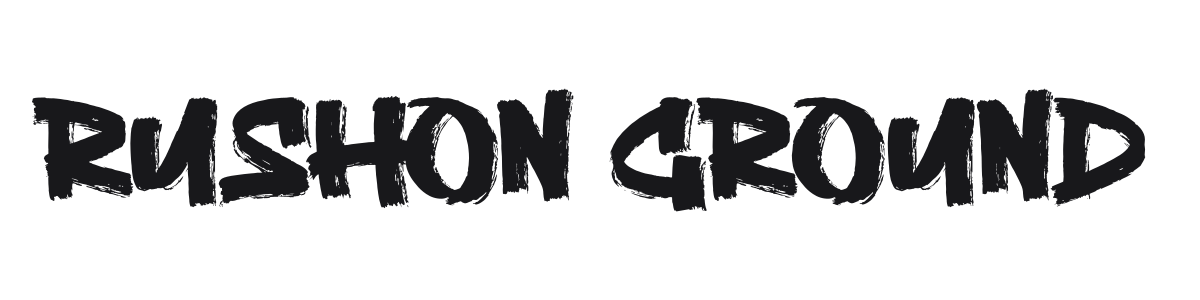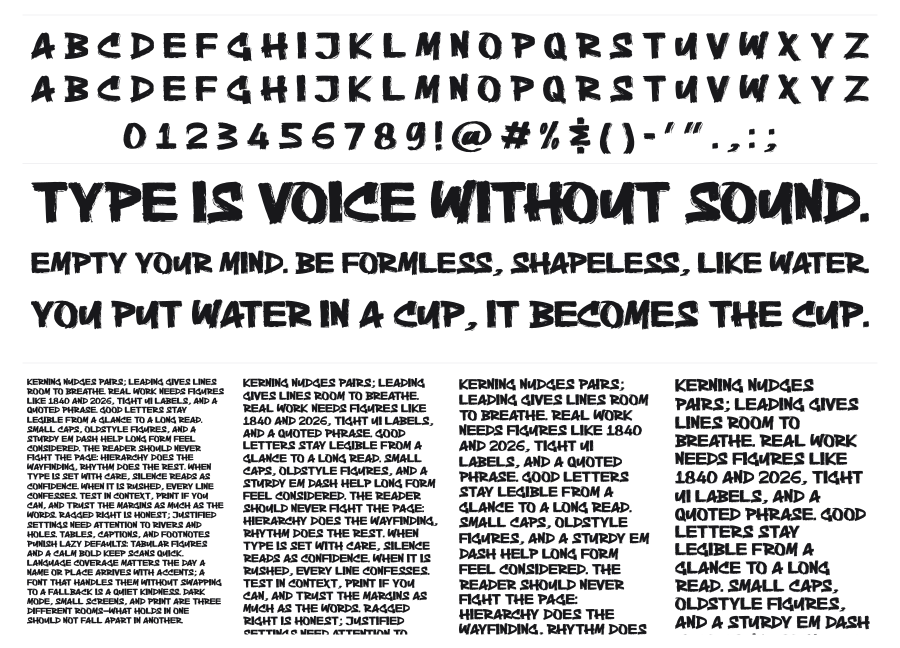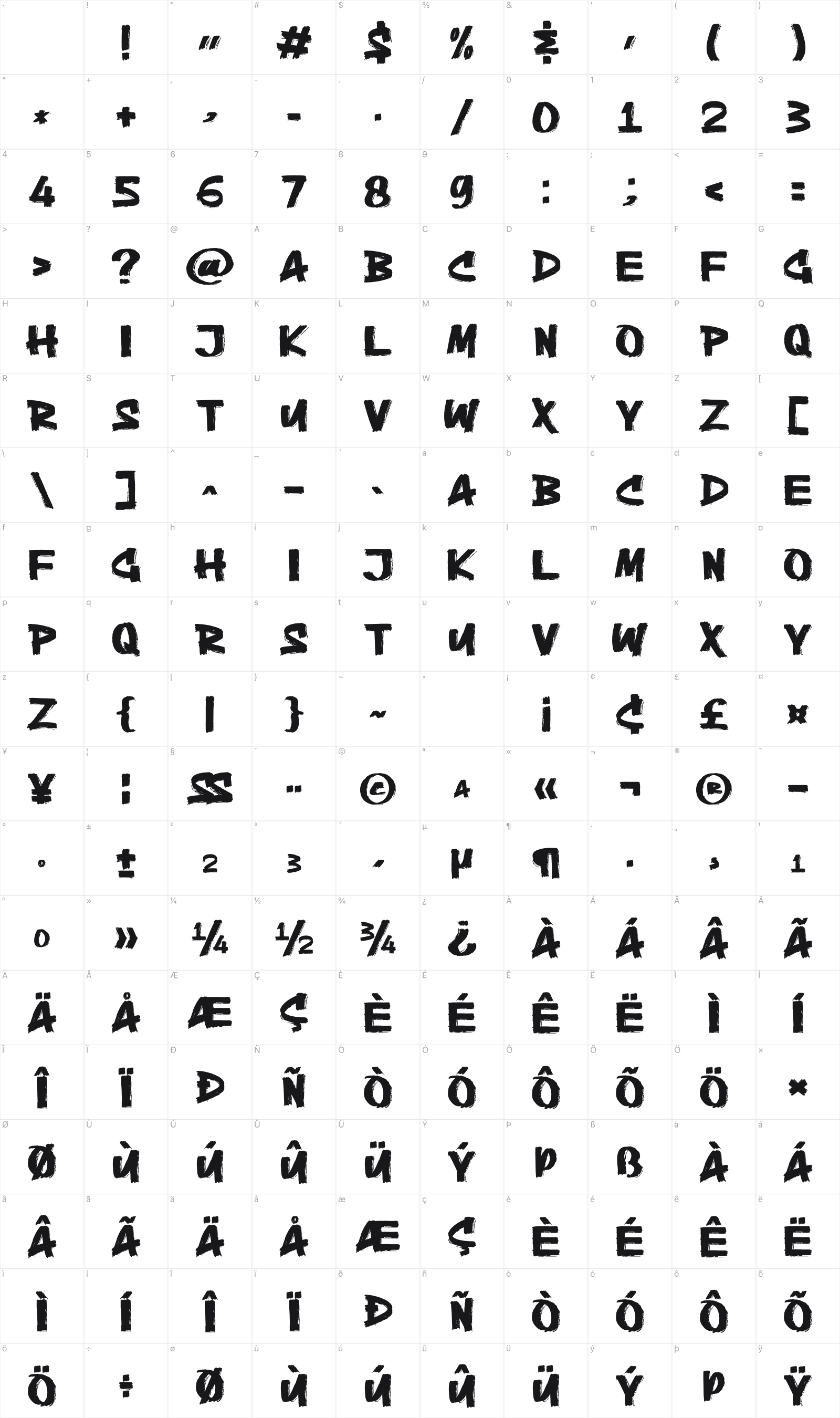
Rushon Ground
Rushon Ground is a heavy brush display font with thick, rough-textured strokes that look like they were painted with a loaded brush on a raw surface. The bristle drag and jagged edges give it an unmistakably gritty, street-art character. It hits hard at headline sizes and works well for anything needing raw, handmade energy.